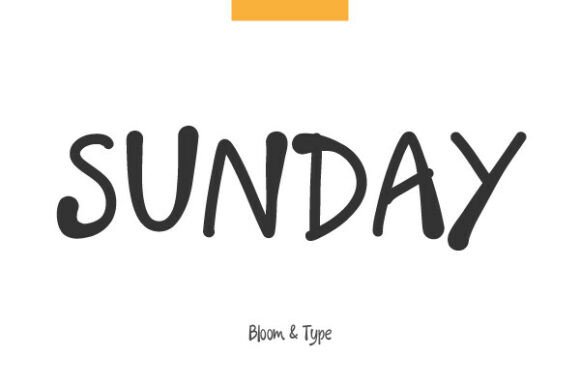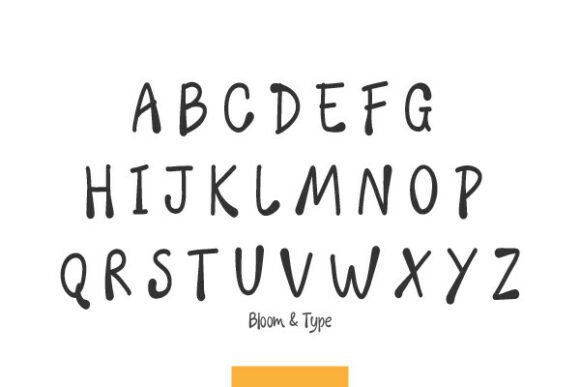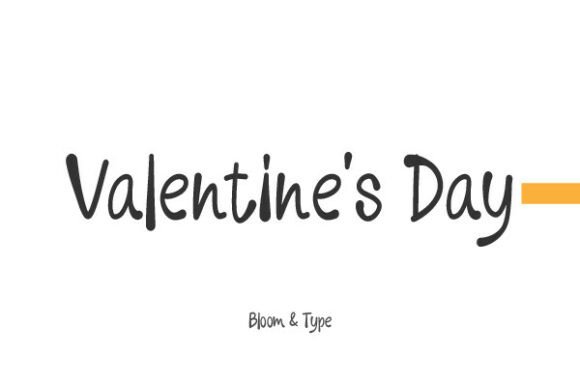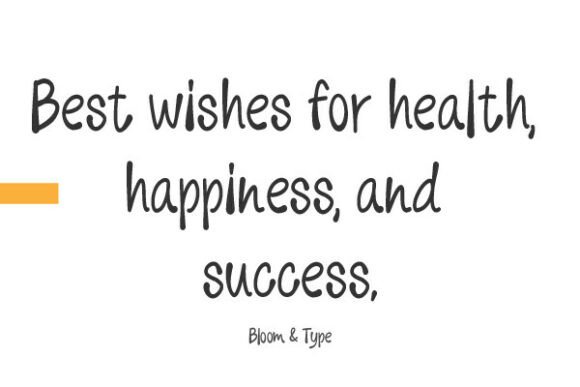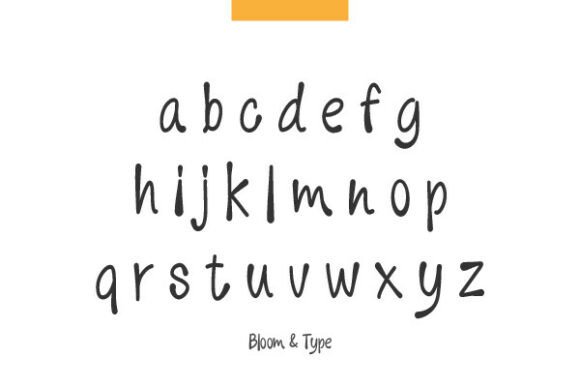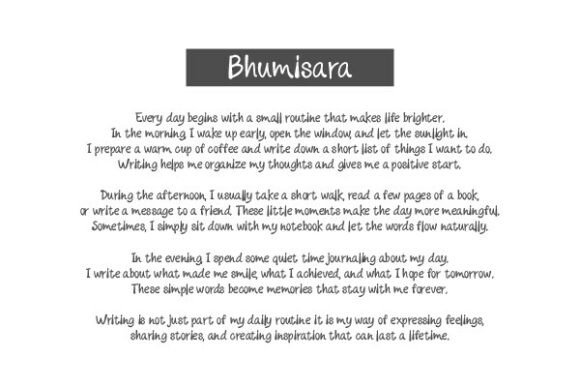
Bhumisara Font: Elevate Your Designs with a Charming Handwritten Style
In the world of typography, a good font can make all the difference in the success of a design project. For designers and crafters looking for a unique and versatile font, Bhumisara is an excellent choice. This charming handwritten font combines natural flow with modern simplicity, making it perfect for a wide range of design applications.
The Characteristics of Bhumisara Font
Bhumisara is a beautifully crafted font that boasts smooth strokes and balanced spacing, creating a friendly yet professional look. Its warm and approachable style makes it an ideal choice for designers who want to add a personal touch to their work. The font’s natural flow and modern simplicity blend seamlessly, resulting in a versatile typography solution that can be used in both casual and elegant design projects.
Versatility of Bhumisara Font
One of the standout features of Bhumisara is its versatility. This font can be used in a variety of design projects, including:
- Logo Design: Bhumisara’s unique and charming style makes it perfect for creating memorable logos that stand out.
- Social Media Graphics: The font’s friendly and approachable style is well-suited for social media graphics, helping to engage audiences and convey messages effectively.
- Packaging Design: Bhumisara’s modern simplicity and natural flow make it an excellent choice for packaging design, adding a touch of elegance and sophistication to product packaging.
- Greeting Cards: The font’s warm and charming style makes it perfect for creating beautiful and personalized greeting cards.
Why Choose Bhumisara Font?
So, why should designers and crafters choose Bhumisara font for their projects? Here are just a few reasons:
- Unique Style: Bhumisara offers a unique and charming style that sets it apart from other fonts.
- Versatility: The font’s versatility makes it suitable for a wide range of design projects.
- Ease of Use: Bhumisara is easy to use and can be integrated seamlessly into various design software.
- Professional Look: The font’s smooth strokes and balanced spacing create a professional look that is perfect for both casual and elegant design projects.
Tips for Using Bhumisara Font
To get the most out of Bhumisara font, here are a few tips:
- Experiment with Font Sizes: Bhumisara looks great in various font sizes, so don’t be afraid to experiment to find the perfect size for your project.
- Pair with Other Fonts: The font pairs well with other fonts, so try combining it with complementary fonts to create visual interest.
- Use in Combination with Images: Bhumisara looks great when used in combination with images, so try incorporating it into your design projects to add an extra layer of depth.
In conclusion, Bhumisara font is a charming handwritten font that combines natural flow with modern simplicity. Its smooth strokes and balanced spacing create a friendly yet professional look, making it versatile for both casual and elegant design projects. With its warm and approachable style, Bhumisara is perfect for bringing personality and creativity into your work. Whether you’re designing logos, social media graphics, packaging, or greeting cards, this font will help your message stand out beautifully.
So, if you’re looking for a unique and versatile font to elevate your designs, look no further than Bhumisara. With its unique style, versatility, and ease of use, it’s an excellent choice for designers and crafters looking to add a personal touch to their work.